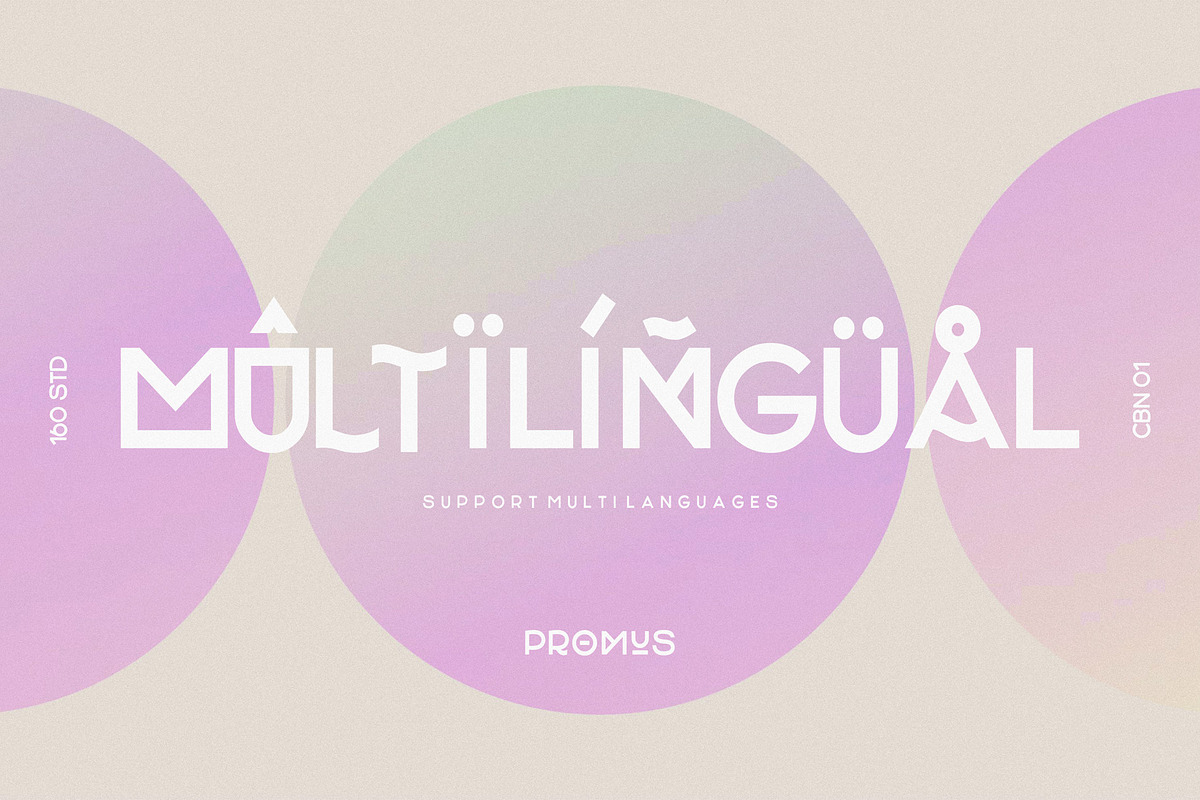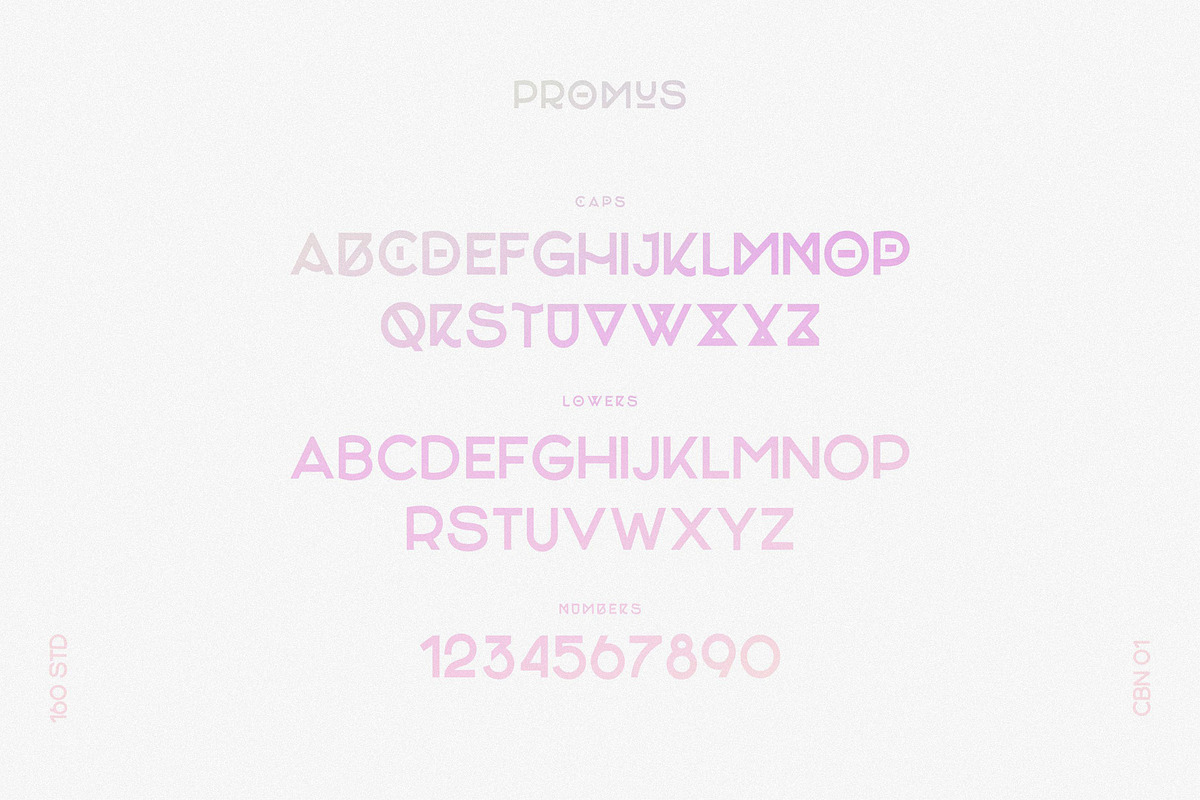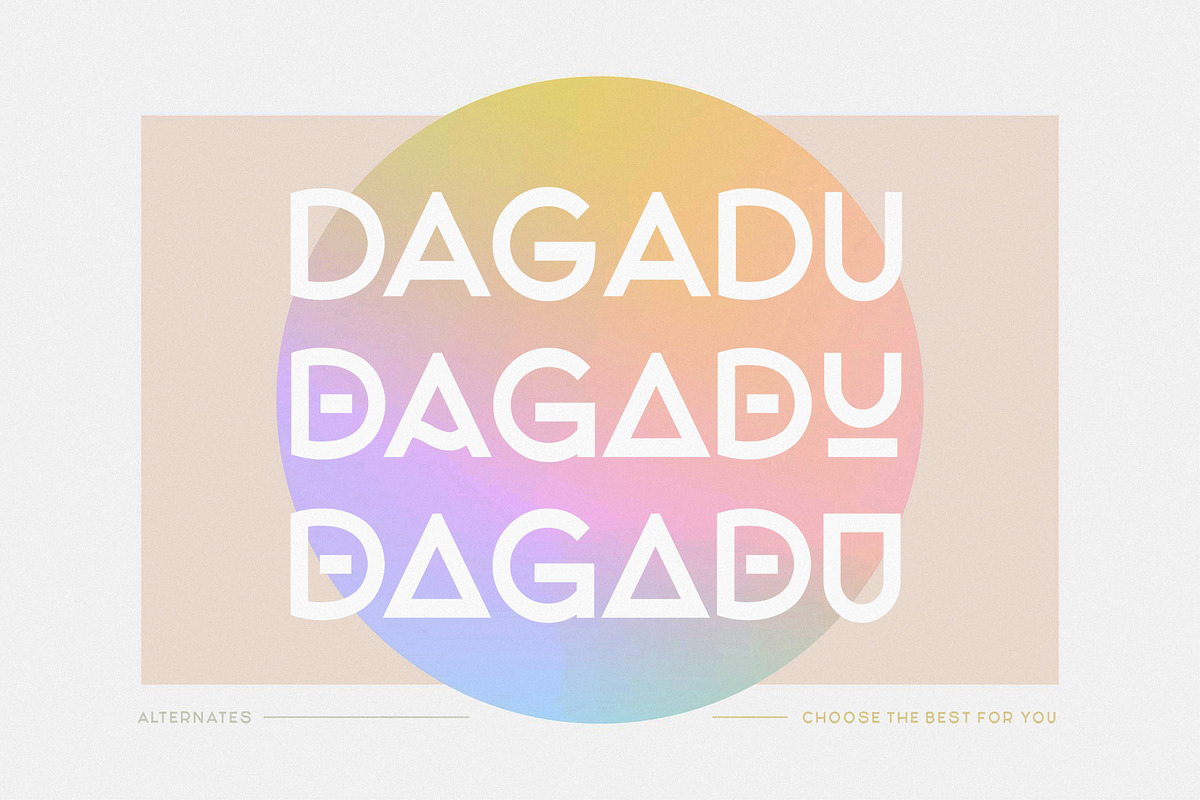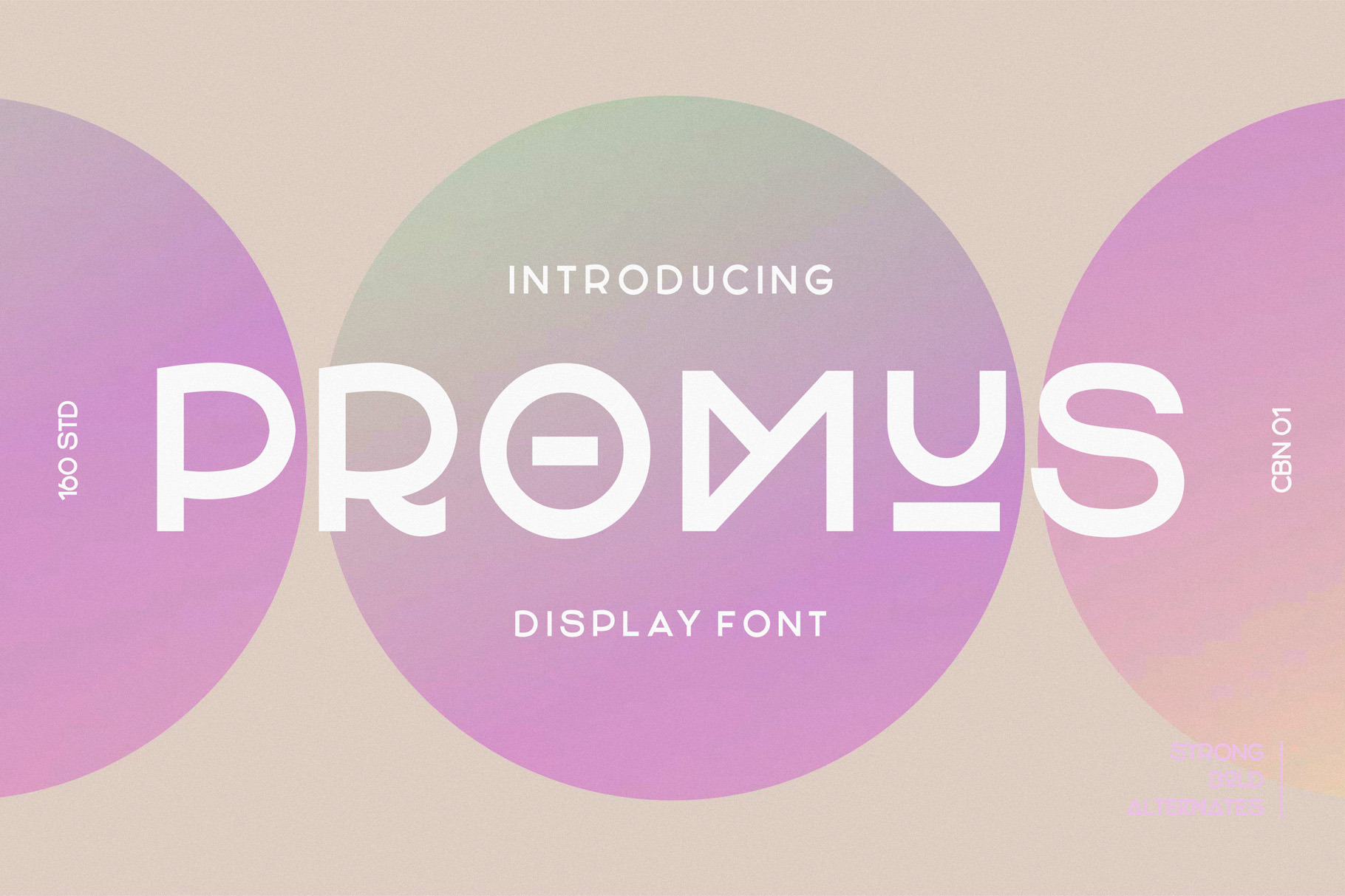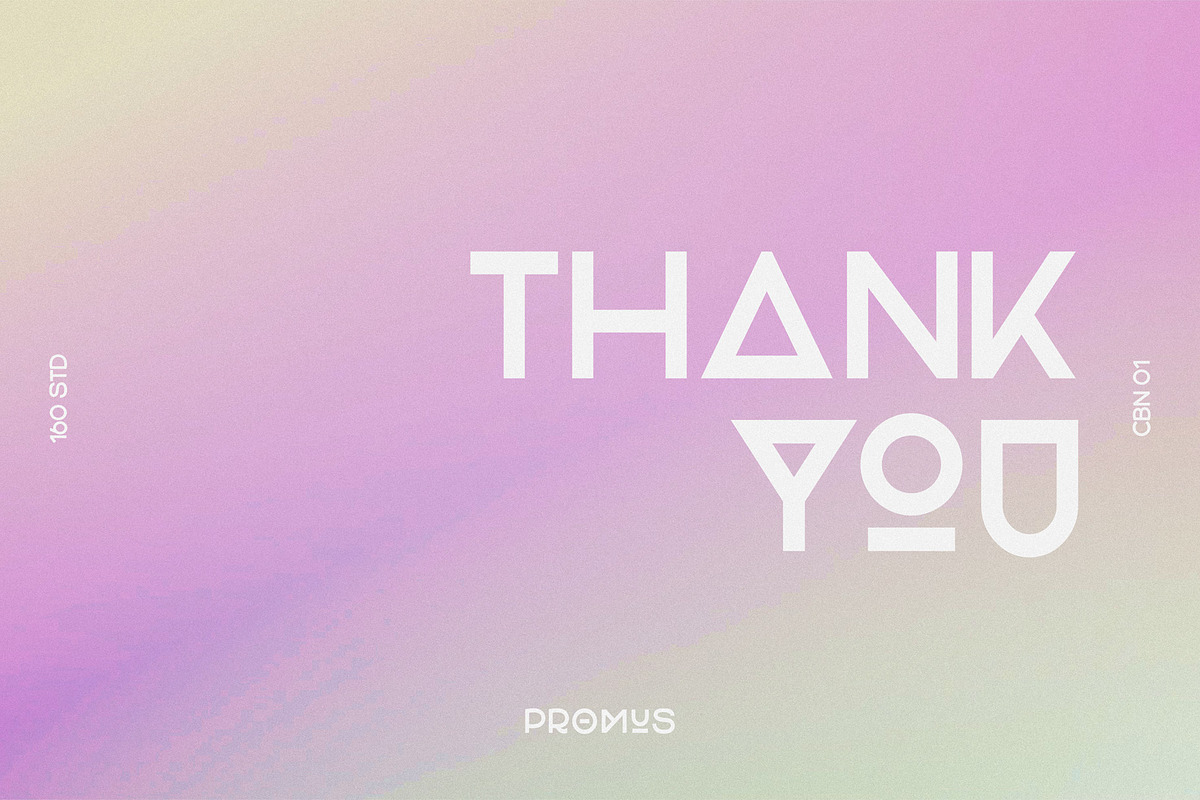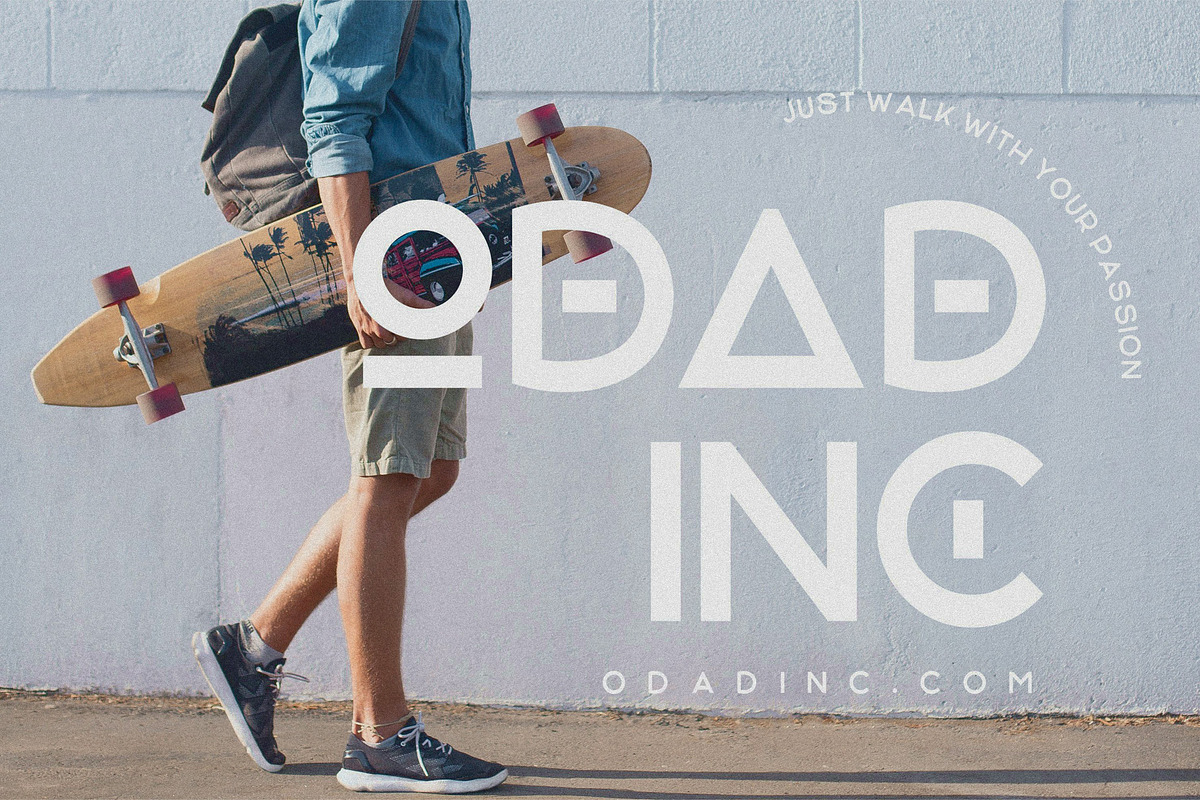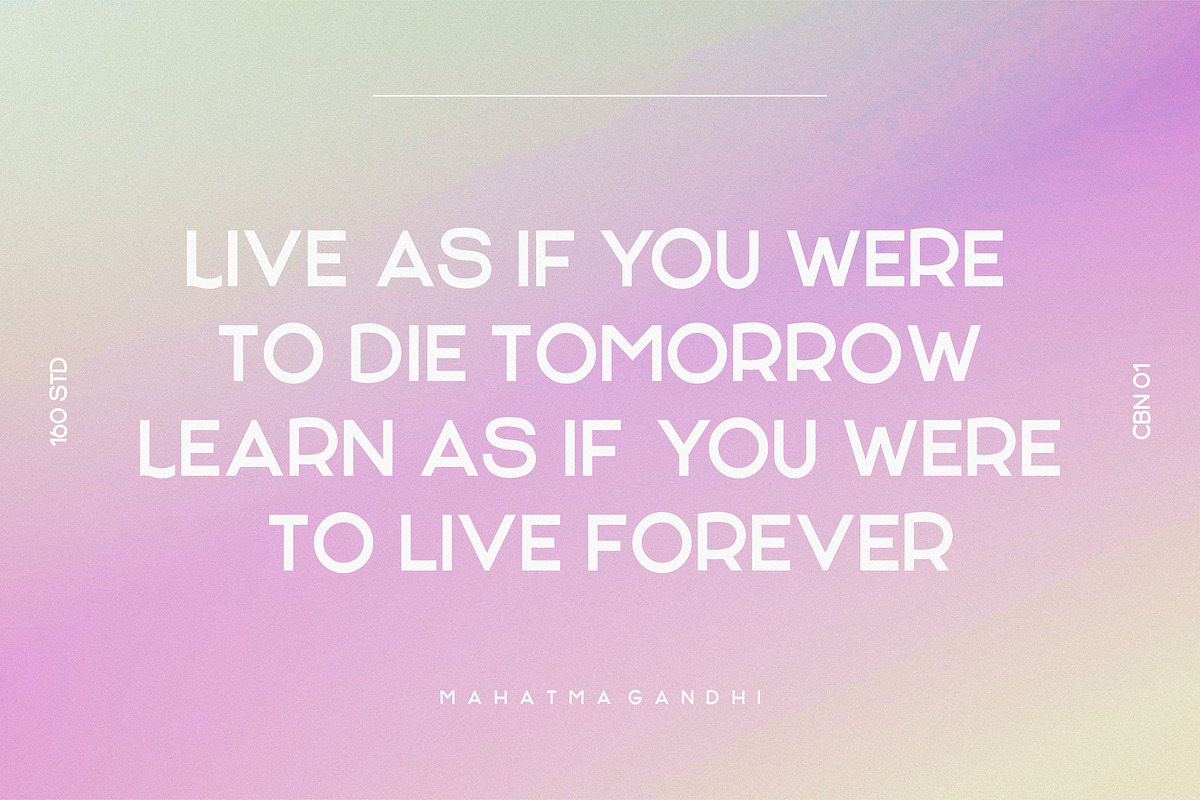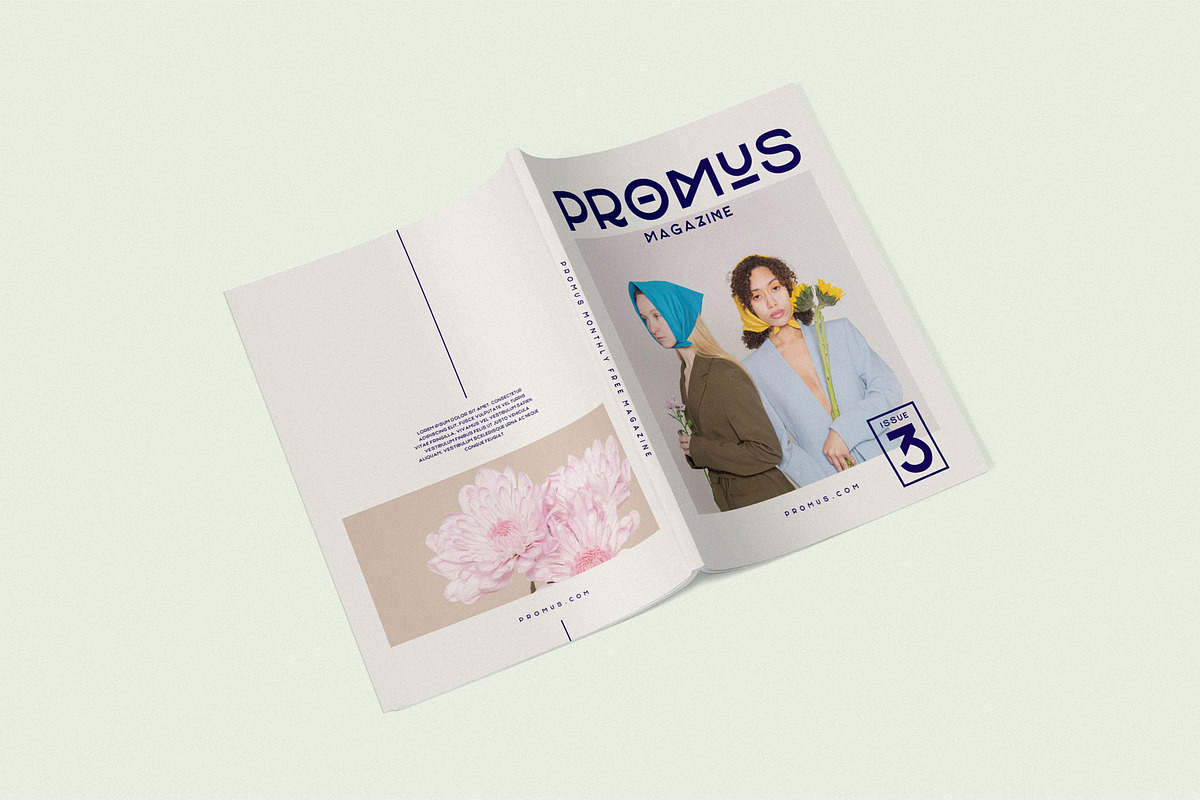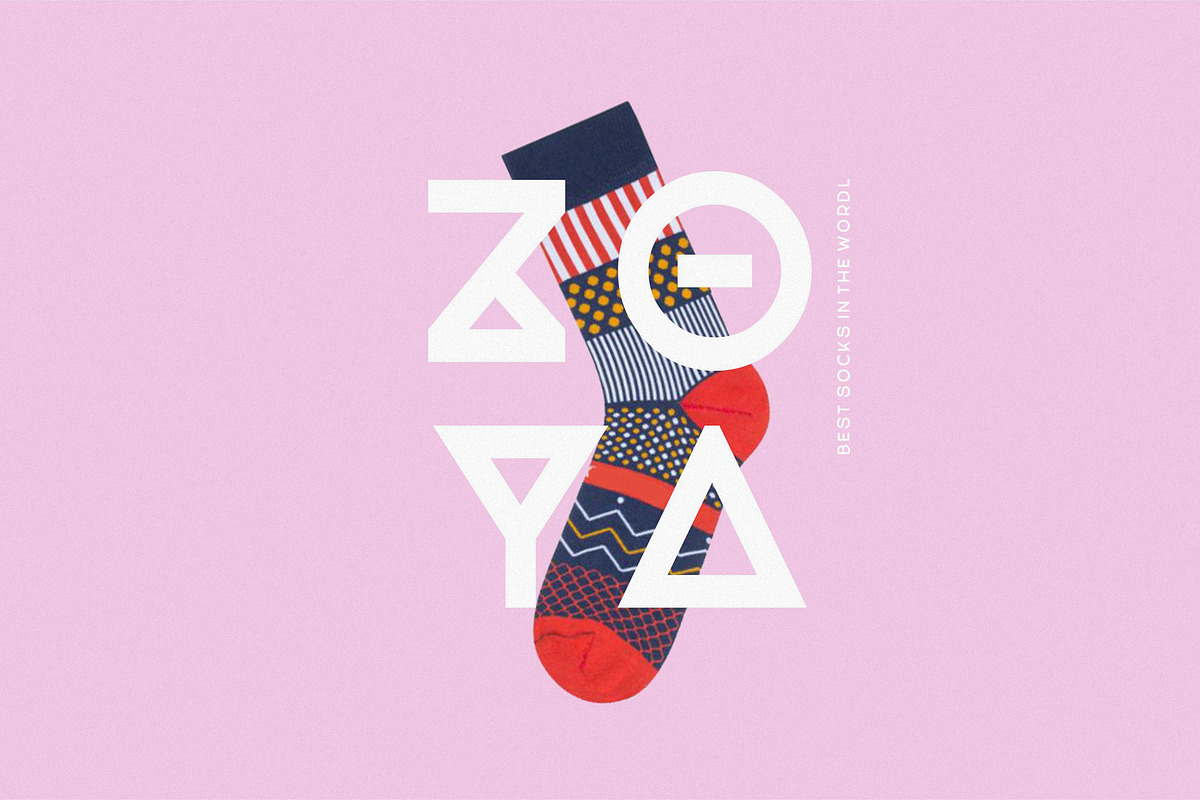
Promus Display Font
PROMUS is all caps display font that is perfect for display type and contemporary branding. It has more than enough eye-catching letters to pull the reader in and make them says WOW!